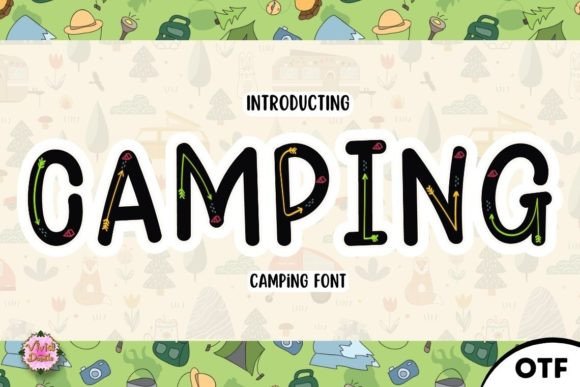
Introducing Camping Font: The Great Outdoors in Type
I’ll never forget the design project that led me to discover Camping Font. I was working on a camping brochure for a client, and I was struggling to find the perfect font to capture the essence of the great outdoors. The project required a typeface that was adventurous, rustic, and evocative of the wilderness. After hours of searching, I stumbled upon Camping Font, and it was love at first sight. In this article, I’ll share my experience with Camping Font, its features, and how to make the most of it in your designs.
A Personal Review of Camping Font
- ✨ The rustic charm and adventurous spirit of Camping Font make it perfect for outdoor-themed designs.
- ✅ The font is versatile and can be used for titles, headers, greeting cards, lettering, banners, posters, invitations, and more.
- 🎨 The unique character set is inspired by the elements of camping, forests, and travel, adding a touch of wilderness to your projects.
While Camping Font is an excellent choice for outdoor-themed designs, there are a few things to keep in mind:
- ⚠️ Some characters may not be suitable for body text due to their decorative nature.
- 🤔 The font may not work well with very small font sizes, as some details may get lost.
The Story Behind Camping Font
Camping Font was designed by a team of creatives who wanted to capture the essence of the great outdoors in a typeface. Inspired by the beauty of nature, the designers aimed to create a font that would evoke feelings of adventure and exploration. The result is a unique and charming font that is perfect for outdoor-themed designs.
Q: What is Camping Font?
Camping Font is an adventurous typeface that captures the spirit of the great outdoors. It’s perfect for outdoor-themed designs, such as titles, headers, greeting cards, and more.